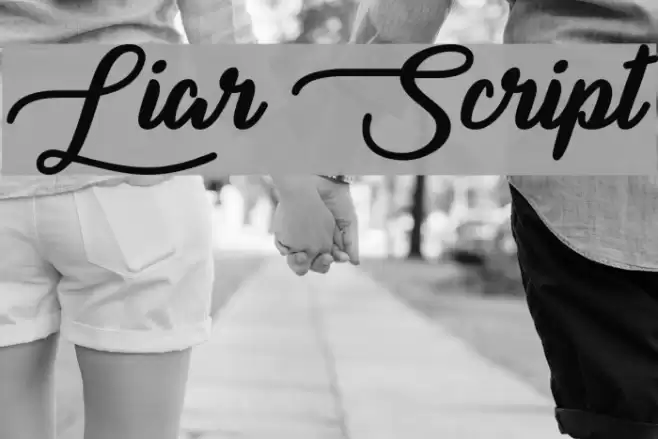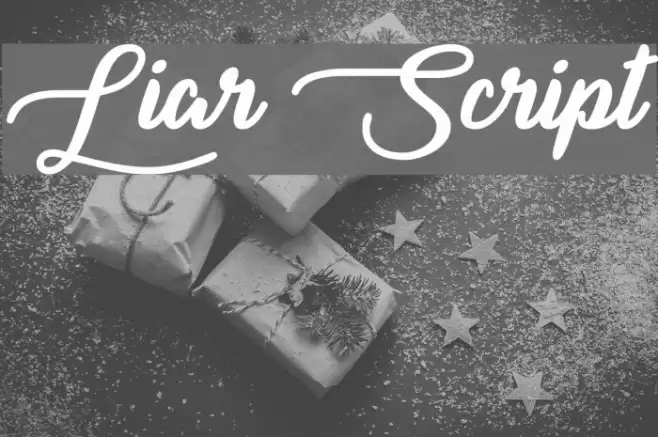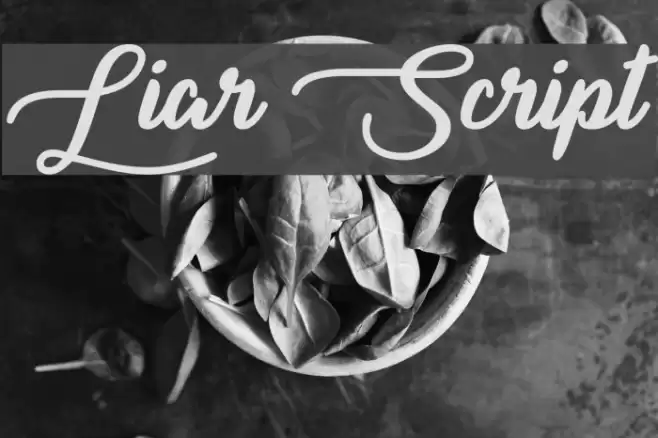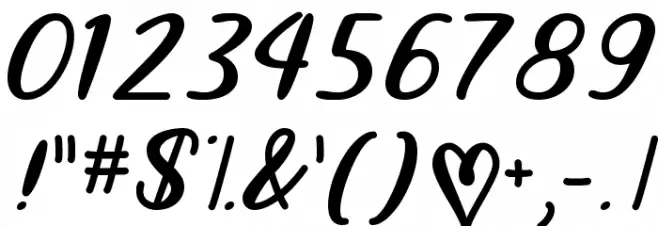
Liar Script Font
Liar Script Description
This font exudes a dynamic and elegant script style, characterized by its fluid and connected letterforms. The uppercase letters are gracefully slanted, with a consistent stroke that gives a sense of motion and sophistication. The lowercase letters maintain a cohesive flow, enhancing readability while retaining a stylish flair. The numerals are well-integrated, matching the overall script aesthetic. Special characters are thoughtfully designed, complementing the font's cursive nature. This font is ideal for projects that require a touch of elegance and personality, such as invitations, branding, and editorial design.
A dynamic and elegant script font with fluid, connected letterforms from Uncategorized fonts.
- Proposed Projects: Ideal for wedding invitations, branding, editorial design, and elegant stationery.
- Overall Style: Elegant
- Use Case: Headlines, Logos, Invitations